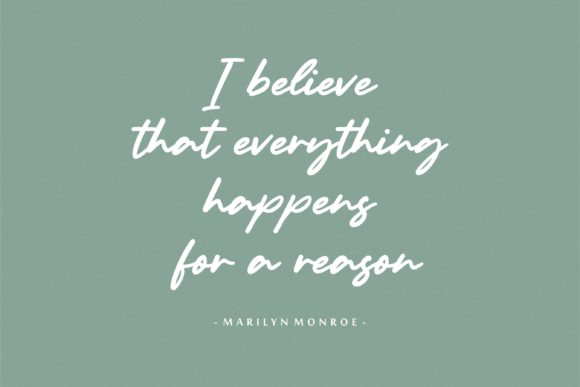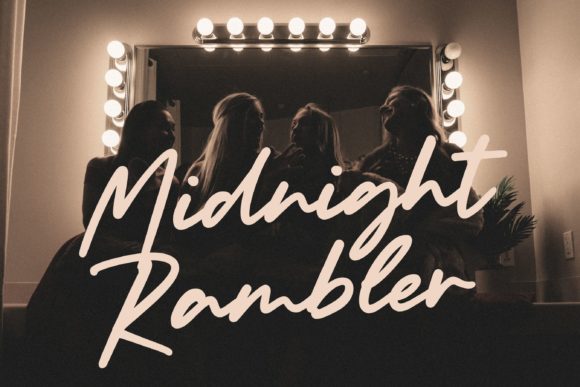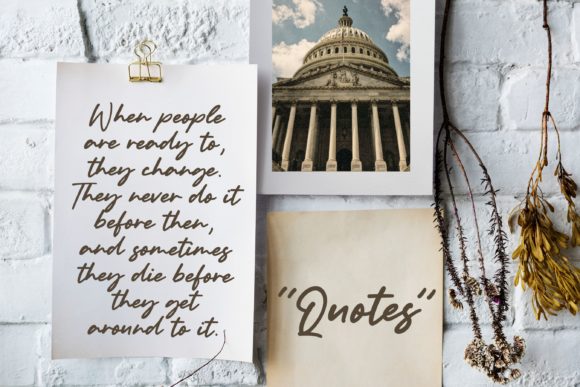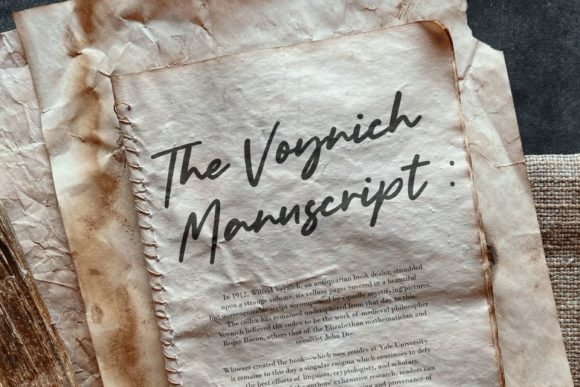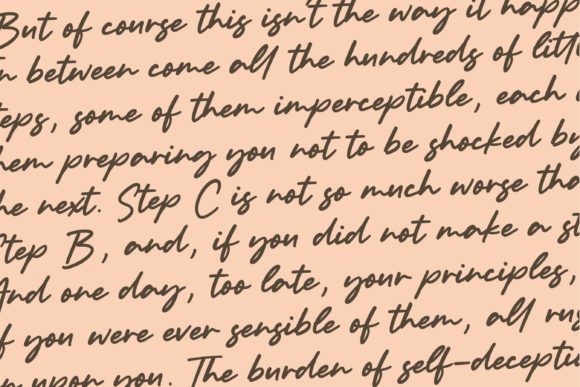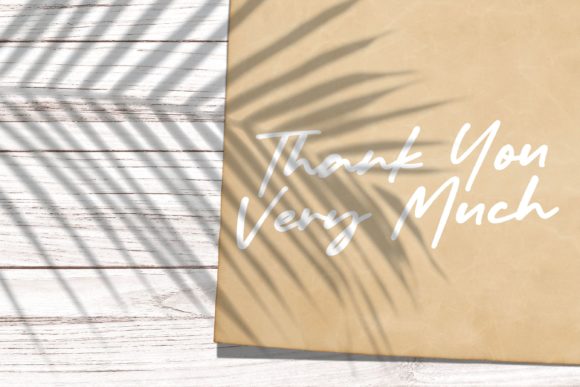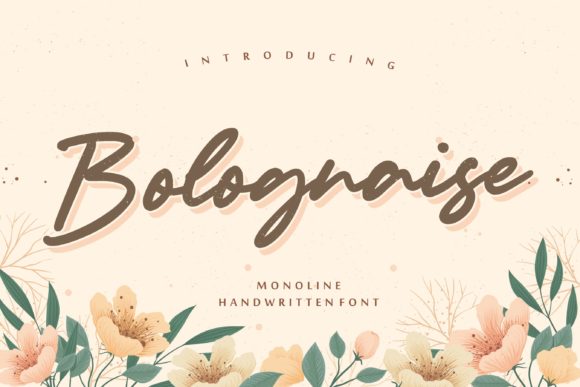
Bolognaise Font: Elevate Your Designs with a Relaxed and Flowing Handwritten Style
Are you tired of using the same old fonts in your designs? Look no further than the Bolognaise font, a beautiful and unique handwritten font that is sure to take your creations to the next level. Created with the help of a stunning brush pen, Bolognaise is a relaxed and flowing font that exudes a sense of elegance and sophistication.
The Story Behind Bolognaise
Bolognaise is more than just a font – it’s a work of art. Its creator poured their heart and soul into crafting a font that would be both distinct and timeless. With its incredibly unique style, Bolognaise is sure to capture the attention of your audience and leave a lasting impression. Whether you’re a designer, crafter, or simply someone who appreciates beautiful typography, Bolognaise is a must-have in your font collection.
What Makes Bolognaise So Special?
So, what sets Bolognaise apart from other fonts? Here are just a few of its standout features:
• Relaxed and Flowing: Bolognaise has a wonderfully relaxed and flowing feel to it, making it perfect for creating designs that need to convey a sense of calm and serenity.
• Handwritten with Love: This font was created with the help of a beautiful brush pen, giving it a wonderfully human and organic feel.
• Distinct and Timeless: Bolognaise has an incredibly distinct style that is sure to stand the test of time. Its classic look and feel will never go out of fashion.
Using Bolognaise in Your Designs
Bolognaise is an incredibly versatile font that can be used in a wide range of designs, from:
• Branding and Packaging: Use Bolognaise to create eye-catching logos, labels, and packaging that will help your brand stand out.
• Stationery and Invitations: Add a touch of elegance to your stationery, invitations, and greeting cards with Bolognaise.
• Digital Designs: Bolognaise is perfect for use in digital designs, such as social media graphics, blog headers, and website titles.
• Crafting and Scrapbooking: Use Bolognaise to add a personal touch to your scrapbooking and crafting projects.
Tips for Getting the Most Out of Bolognaise
Here are a few tips for getting the most out of Bolognaise:
• Experiment with Sizes: Bolognaise looks great in a variety of sizes, from large headings to smaller body text.
• Play with Colors: Try pairing Bolognaise with different colors to create a unique and eye-catching look.
• Mix and Match: Don’t be afraid to mix and match Bolognaise with other fonts to create a truly unique look.
In conclusion, Bolognaise is a truly unique and special font that is sure to elevate your designs to the next level. Its relaxed and flowing handwritten style, combined with its distinct and timeless look, make it a must-have for designers and crafters alike. So why wait? Fall in love with Bolognaise today and start creating spectacular designs that will leave a lasting impression on your audience.
• Bolognaise is a relaxed and flowing handwritten font created with a beautiful brush pen.
• Its incredibly distinct and timeless style makes it perfect for a wide range of designs.
• Bolognaise is versatile and can be used in branding, stationery, digital designs, and crafting.
• Experiment with sizes, colors, and mixing and matching with other fonts to get the most out of Bolognaise.